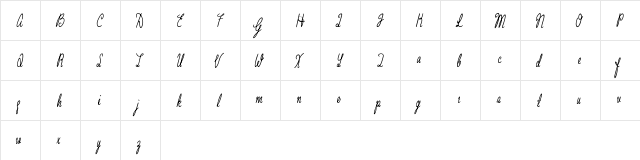
Grannie Terrill Regular
Design Context for Grannie Terrill Typeface
Grannie Terrill is a composed and adaptable typeface that performs quietly and consistently across a wide range of design contexts.
Pro Tip: Use Grannie Terrill in both headline and body roles to test its range before committing to a single application.